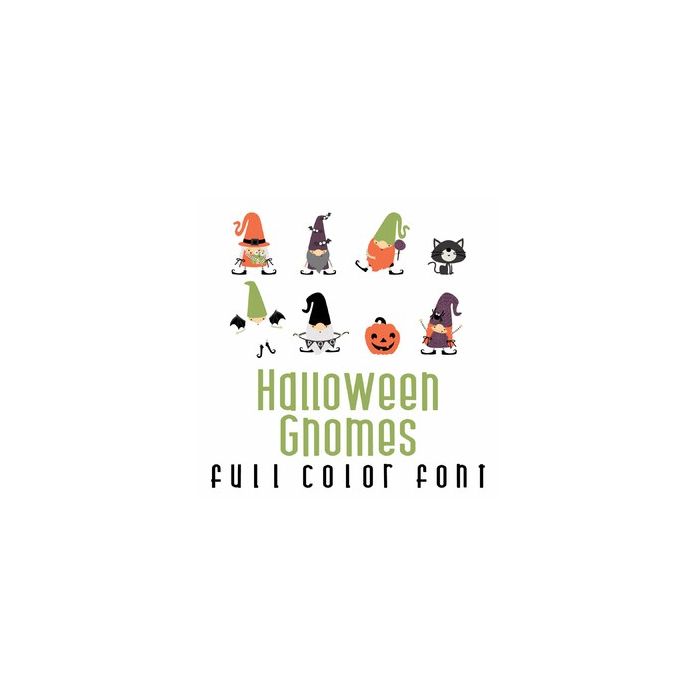
This adorable full-color doodlebat font features 26 adorable Gnomes ready for Halloween. Perfect for cards, crafts, gifts, decor, scrapbook pages, planner stickers, and more!